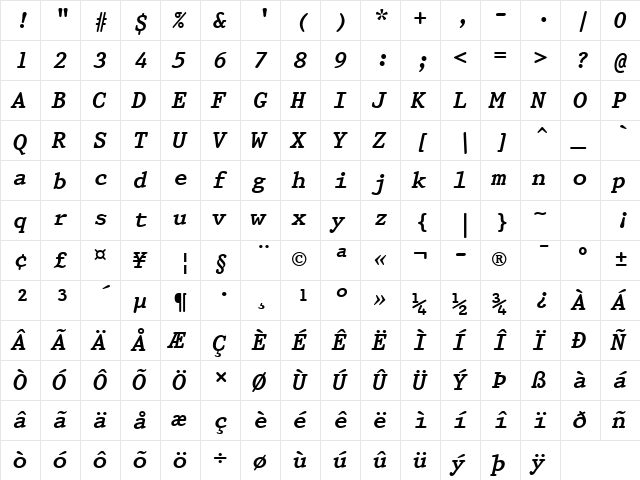
Prestige12 BT Bold Italic
Design Context for Prestige12 BT Typeface
Prestige12 BT is a composed and adaptable typeface that performs quietly and consistently across a wide range of design contexts. The slanted form adds forward momentum and visual energy. Its bold stroke weight gives it real presence on the page.
Pro Tip: Try Prestige12 BT for annotation and caption copy alongside an upright companion — the contrast in angle creates a dynamic but ordered typographic system.